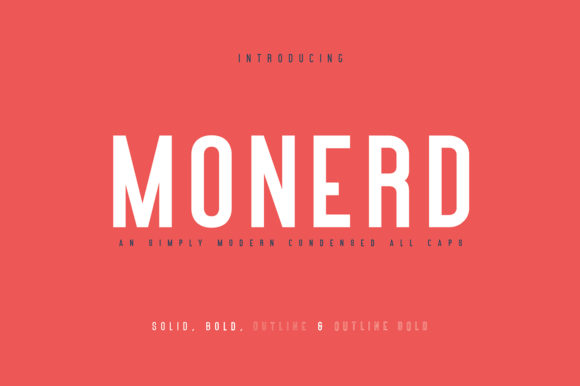
Prepare yourself to dive into the realm of Monerd, the font that oozes boldness, solidity, and unwavering strength. Its sans serif design, meticulously crafted by the talented Maulana Creative, exudes a captivating charm that commands attention.
Monerd is not just a font; it's a statement of power and confidence. Its firm lines and unwavering structure evoke a sense of determination and resilience. Whether you're designing logos that demand respect, headlines that leave a lasting impact, or website interfaces that radiate authority, Monerd is your ultimate choice.
Imagine your fitness website, transformed by the energy of Monerd. Its robust characters will ignite a fire in your visitors' hearts, propelling them towards their fitness goals with renewed vigor. The clarity and legibility of Monerd ensure that your message is communicated with crystal-clear precision, inspiring your audience to take action.
With Monerd as your font of choice, you'll unlock a world of creative possibilities. Its versatility knows no bounds, effortlessly adapting to a myriad of design projects. Unleash your imagination and watch as Monerd seamlessly blends into branding, magazines, films, games, apps, posters, and even t-shirts.
Monerd isn't merely a font; it's an experience. Its bold strokes and unwavering presence create an emotional connection that resonates with your audience. They'll feel the power of your words, the strength of your message, and the unwavering determination that drives your brand forward.
Step into the world of Monerd and discover the boundless potential that awaits. This font is more than just a visual element; it's a force to be reckoned with. Embrace its boldness, harness its strength, and ignite your brand's journey to greatness.